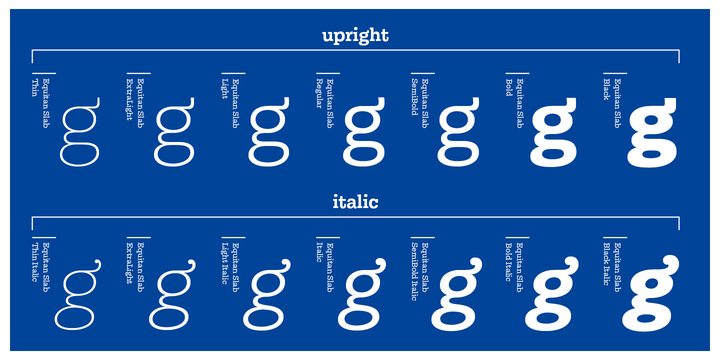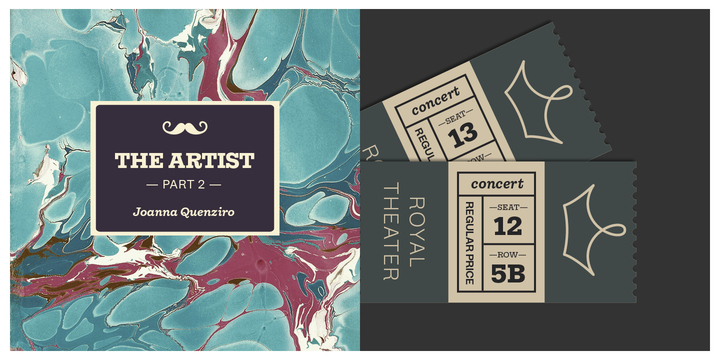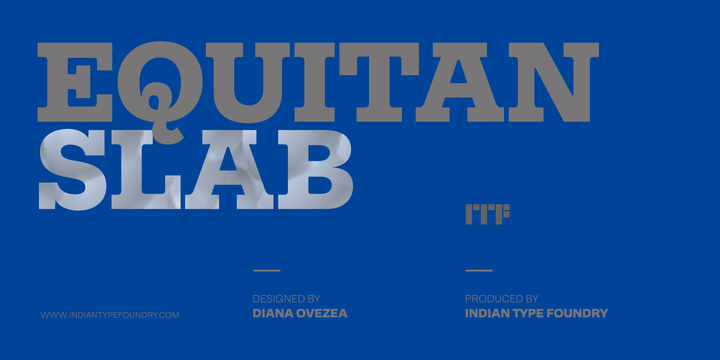
Equitan Slab
Equitan Slab Font Family
Part of the Equitan super family, Equitan Sans and Equitan Slab are ready for branding projects and packaging design. They serve up industrial-era letterforms, refreshed for a new century. Each of the seven weights has an upright and a true italic, with 418 glyphs per font.